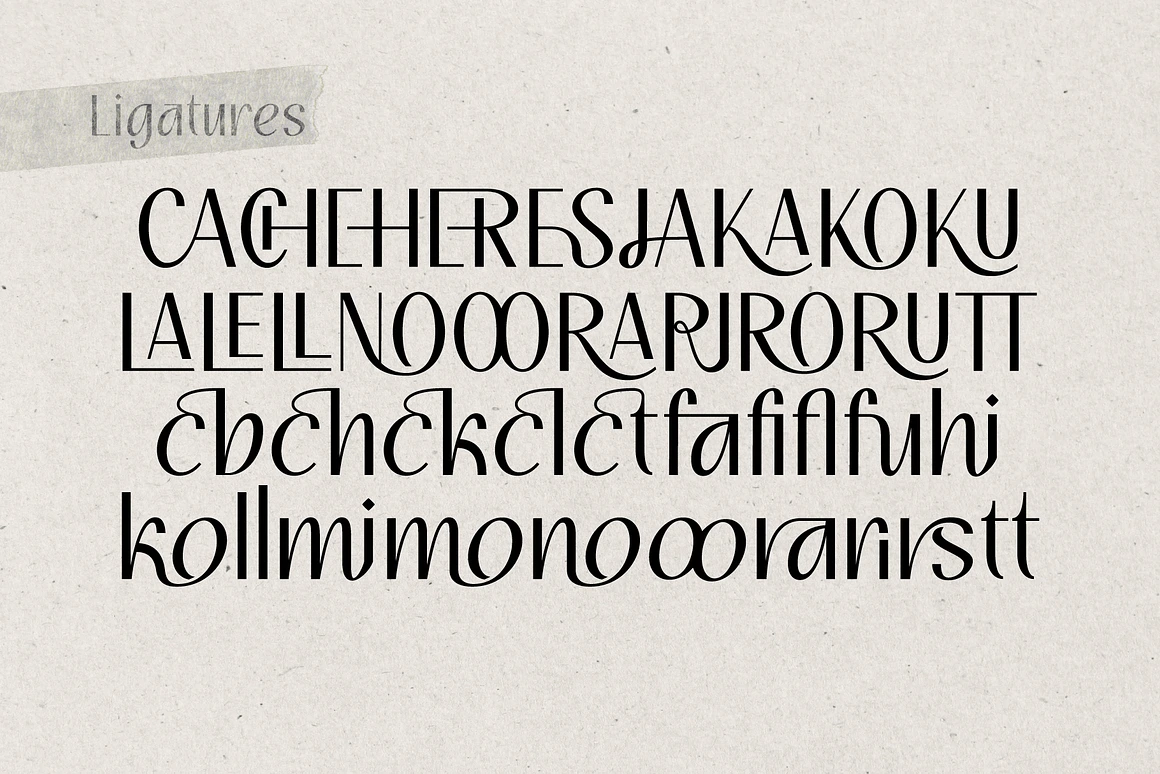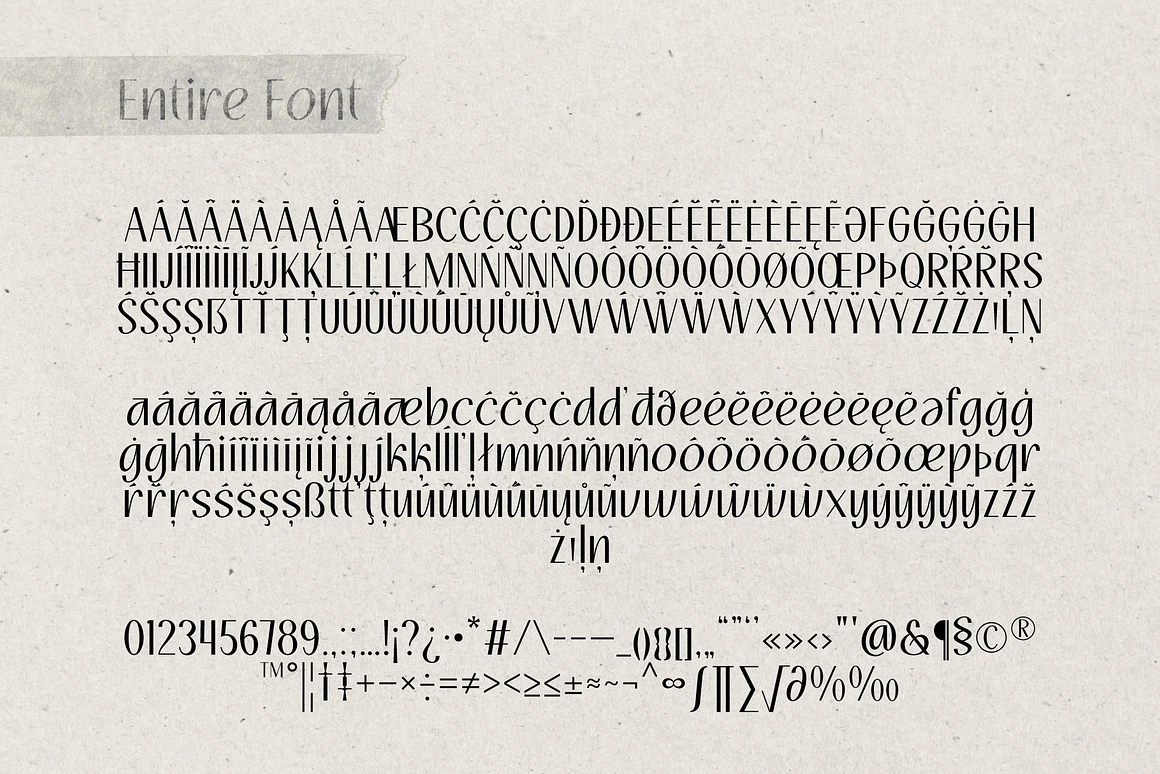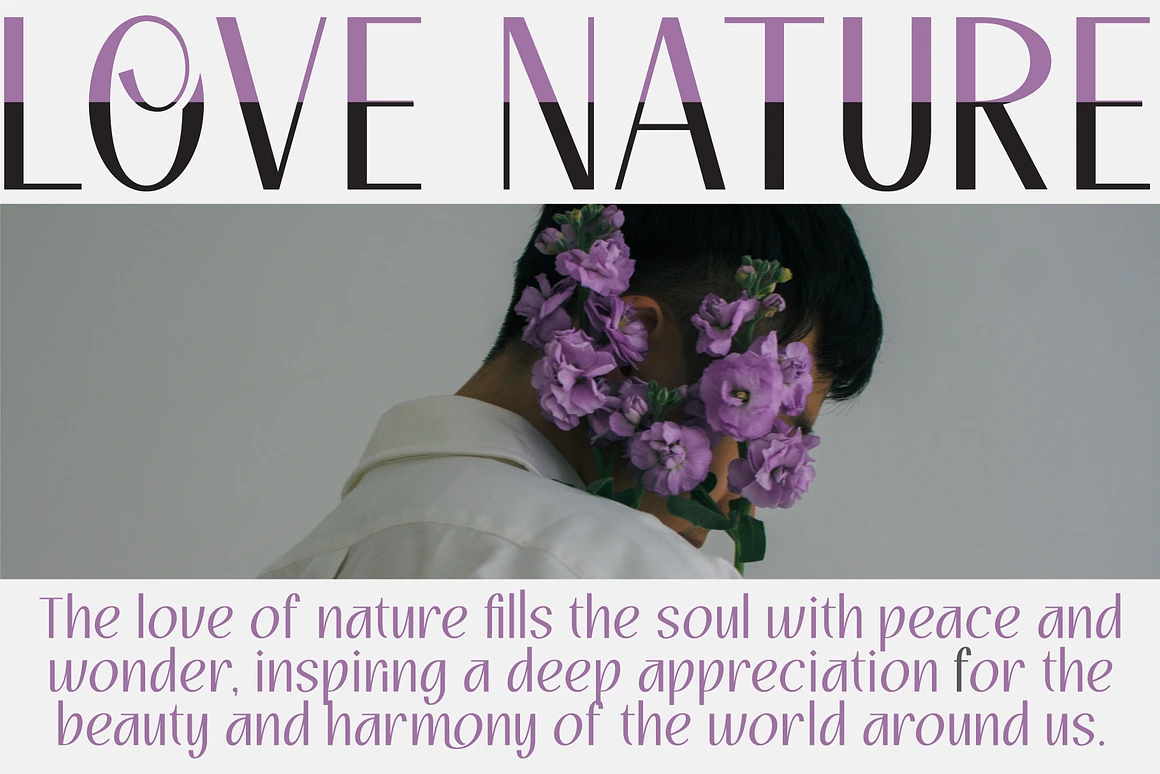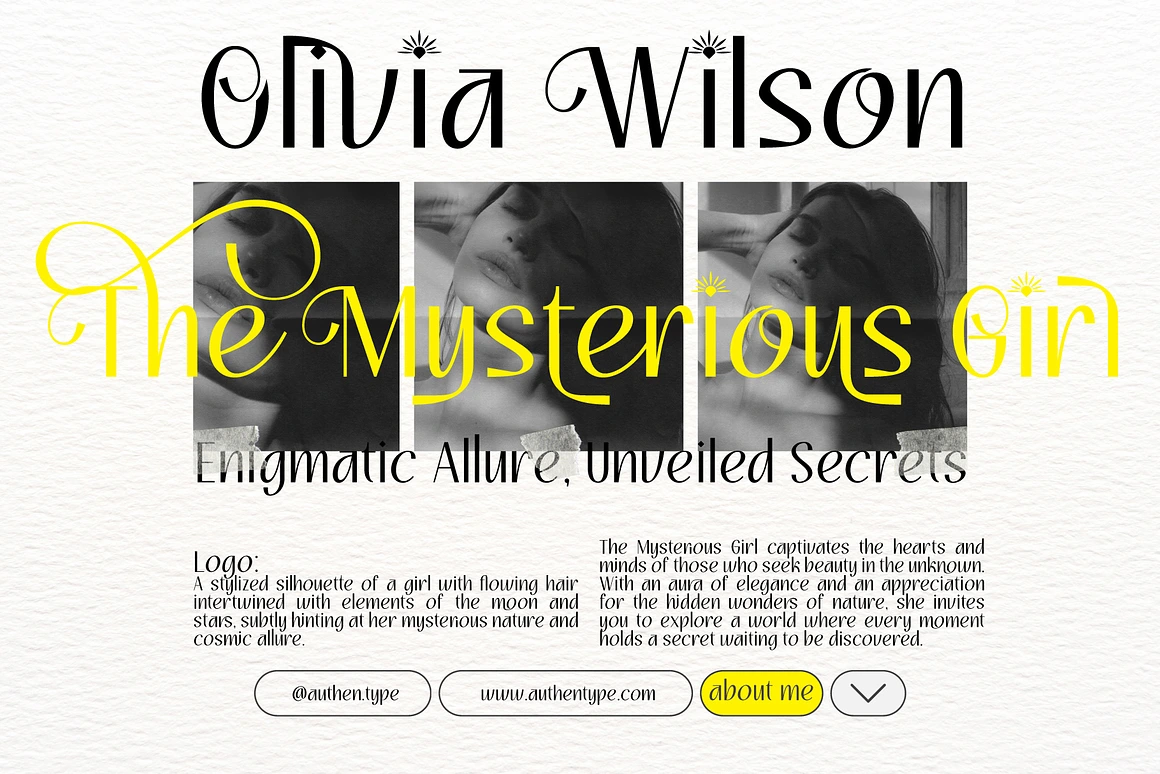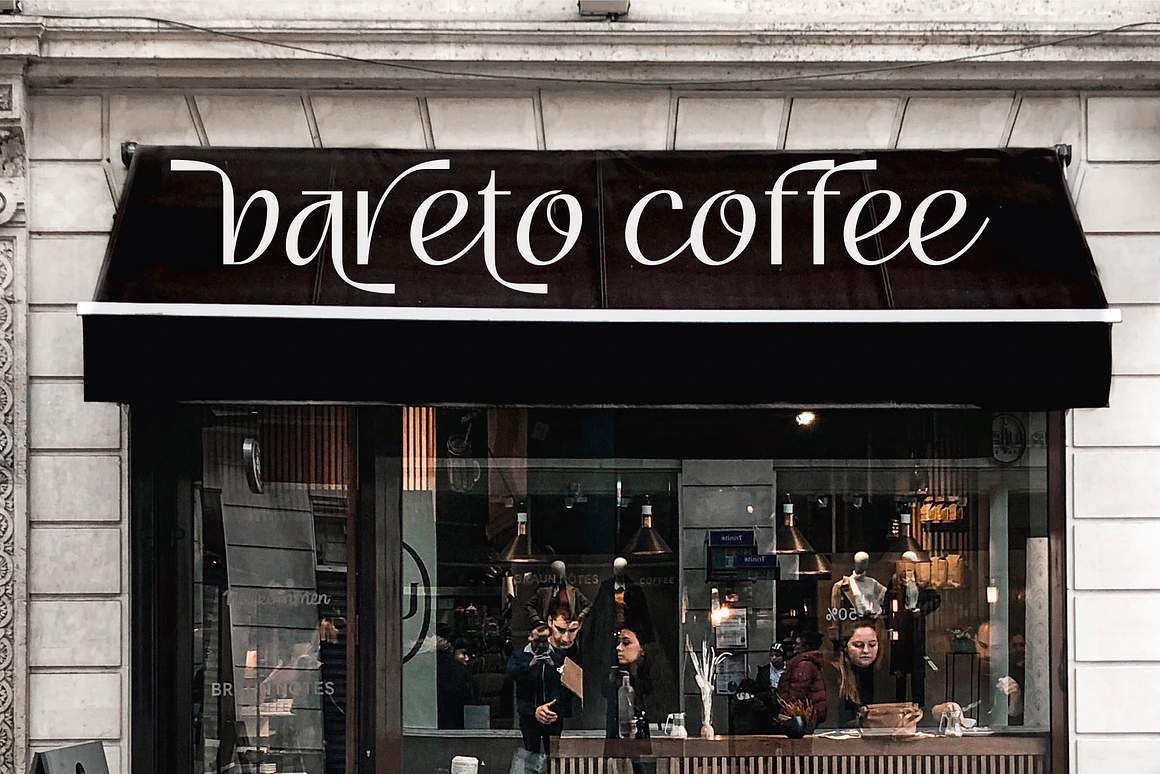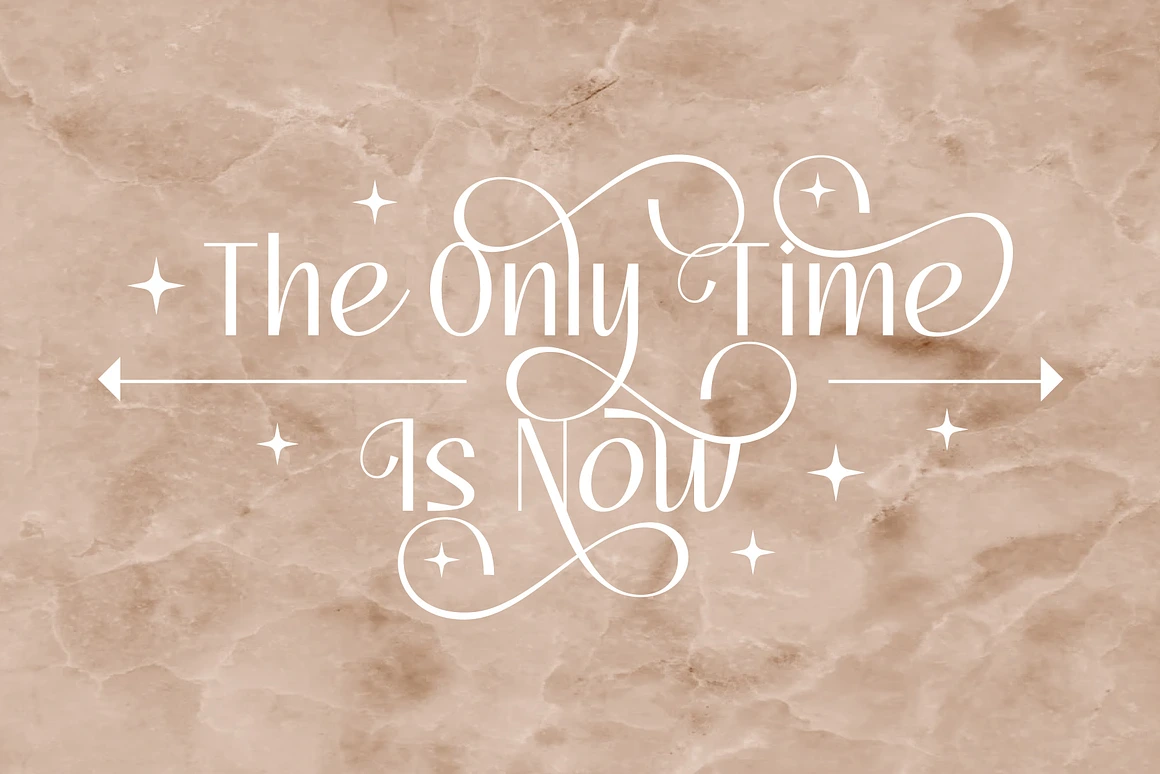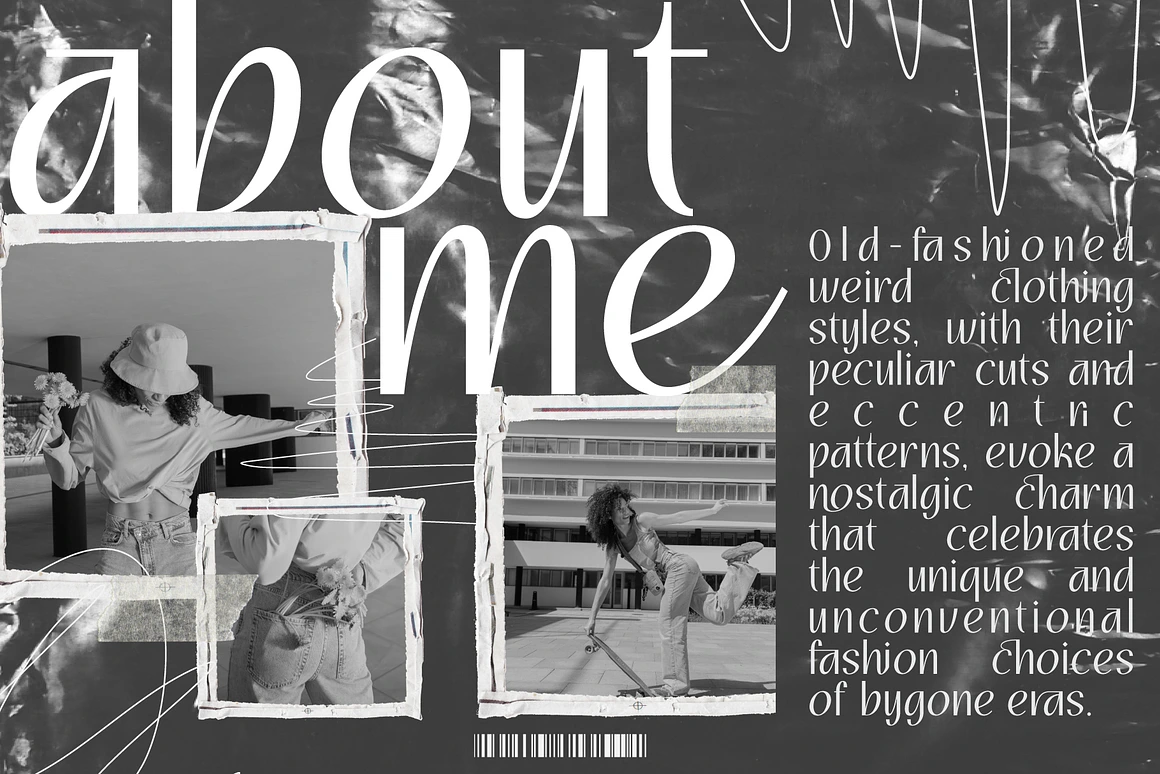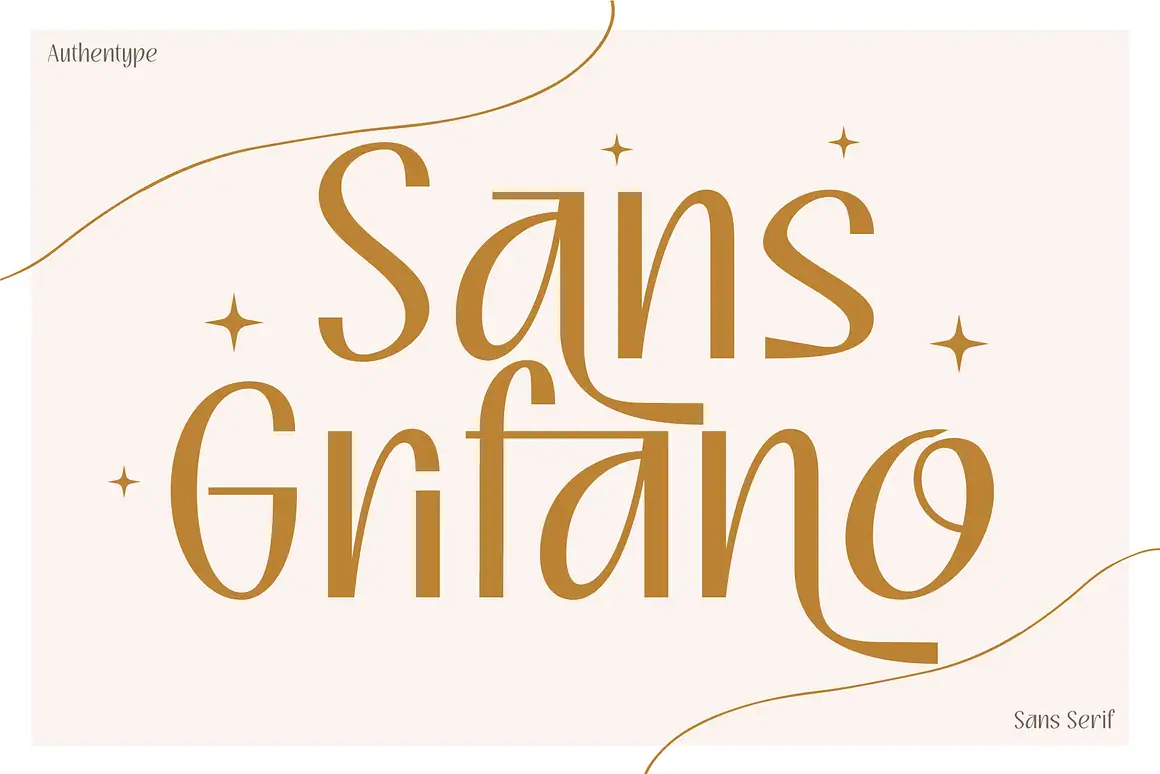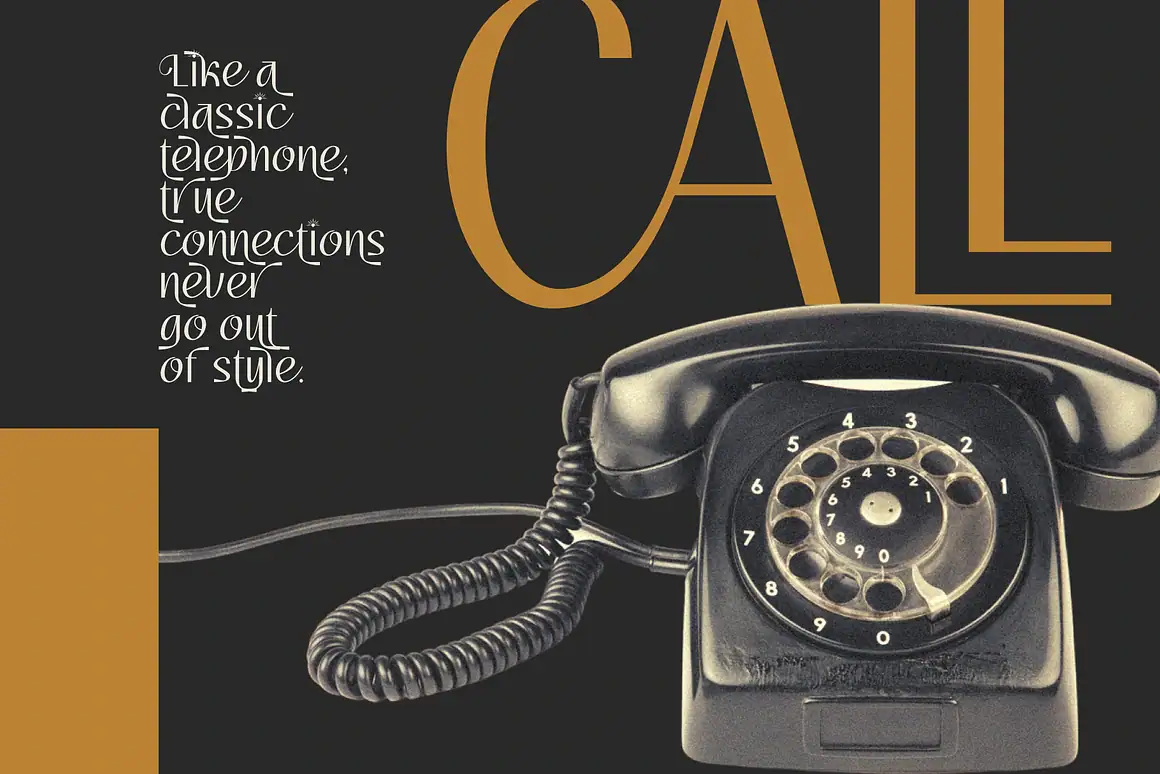
Sans Grifano
Sans Grifano Font
Introducing Sans Grifano, a simple yet unique and elegant font designed to bring sophistication and clarity to your projects. With its clean lines and modern aesthetic, Sans Grifano strikes the perfect balance between minimalism and distinctiveness, making it an ideal choice for a wide range of applications.
Features:
Stylistic Sets: Customize the appearance of your text with a variety of stylistic alternates. These sets provide subtle yet impactful variations to enhance the overall look of your designs.
Swashes: Add a touch of flair and elegance with beautifully crafted swashes. Perfect for headlines, logos, and any text that needs a decorative boost.
Ligatures: Improve the flow and readability of your text with natural and harmonious ligatures. These thoughtfully designed character combinations enhance the overall aesthetic and ensure seamless letter connections.
Why Choose Sans Grifano?
Sans Grifano is designed with versatility in mind. Its clean and straightforward design makes it suitable for both body text and headlines, while its unique features ensure it stands out from standard sans-serif fonts. Whether you’re designing for print, digital, or web, Sans Grifano provides the flexibility and elegance needed to make your projects shine.
Perfect For:
– Branding and Logo Design
– Website and App Design
– Advertising and Marketing Materials
– Editorial Design and Publications
– Product Packaging
– Social Media Graphics